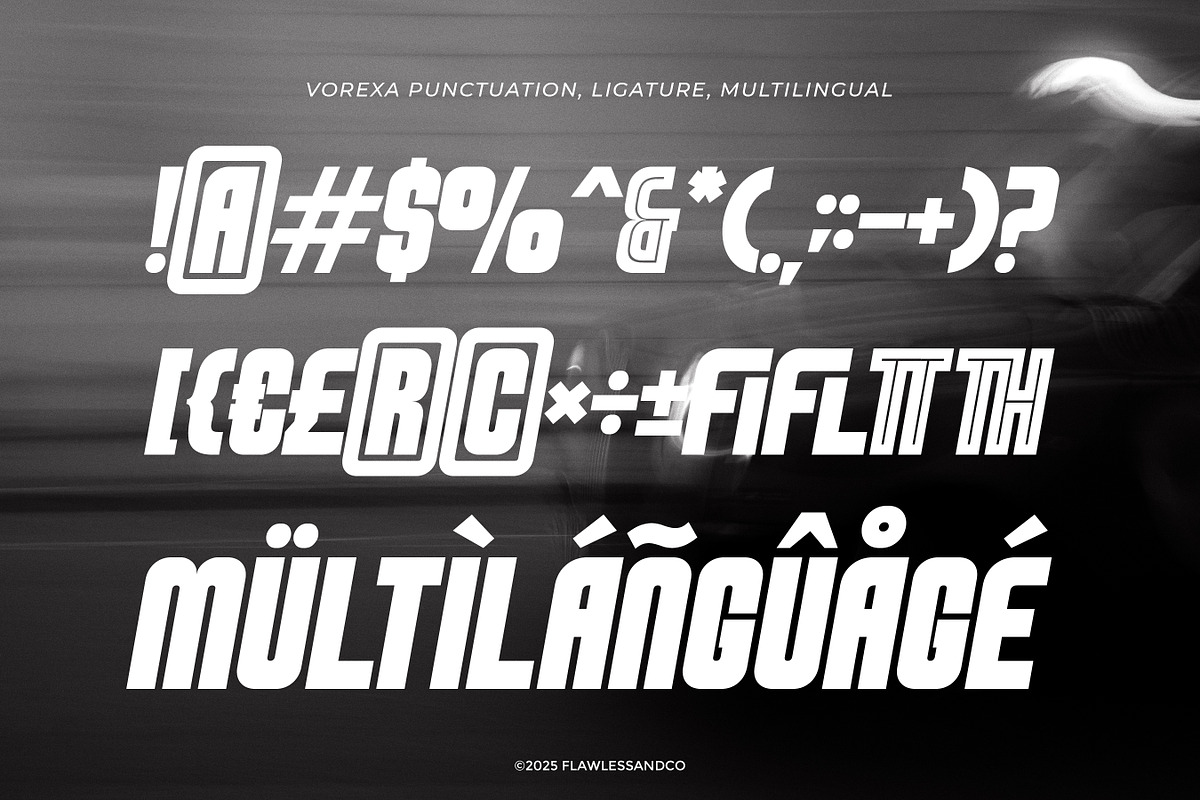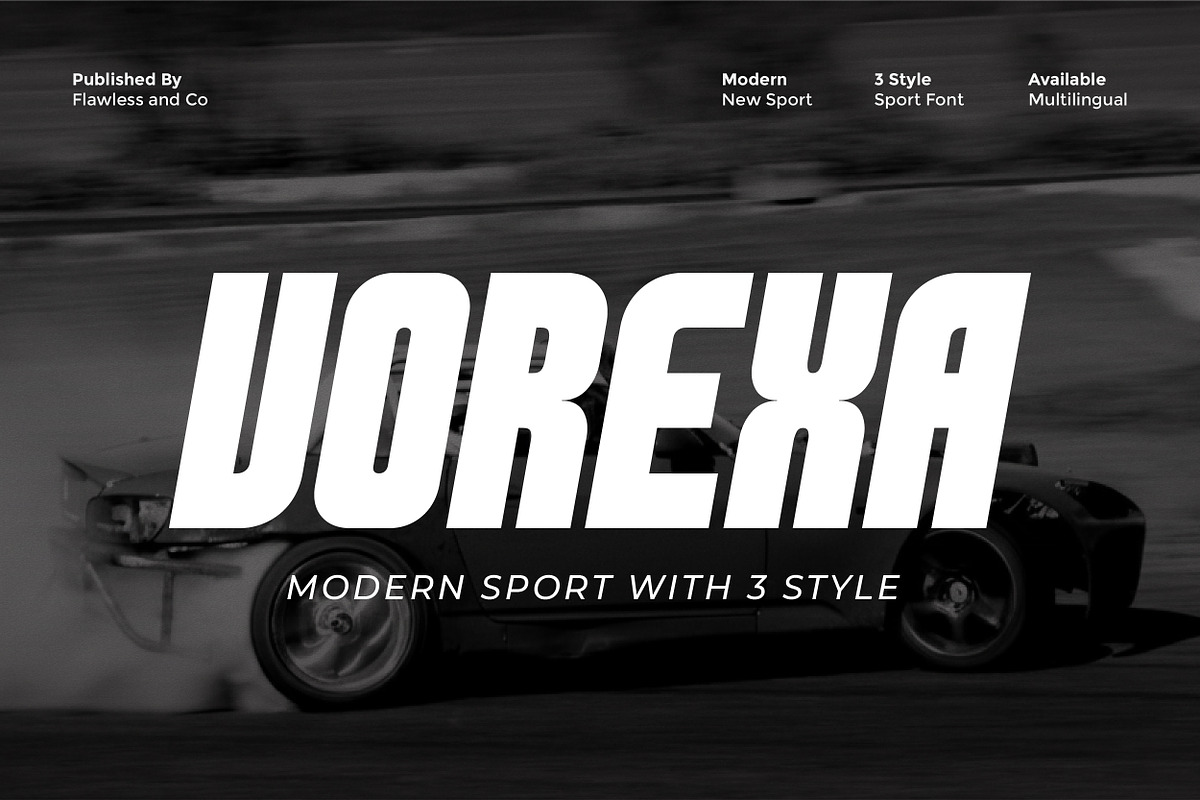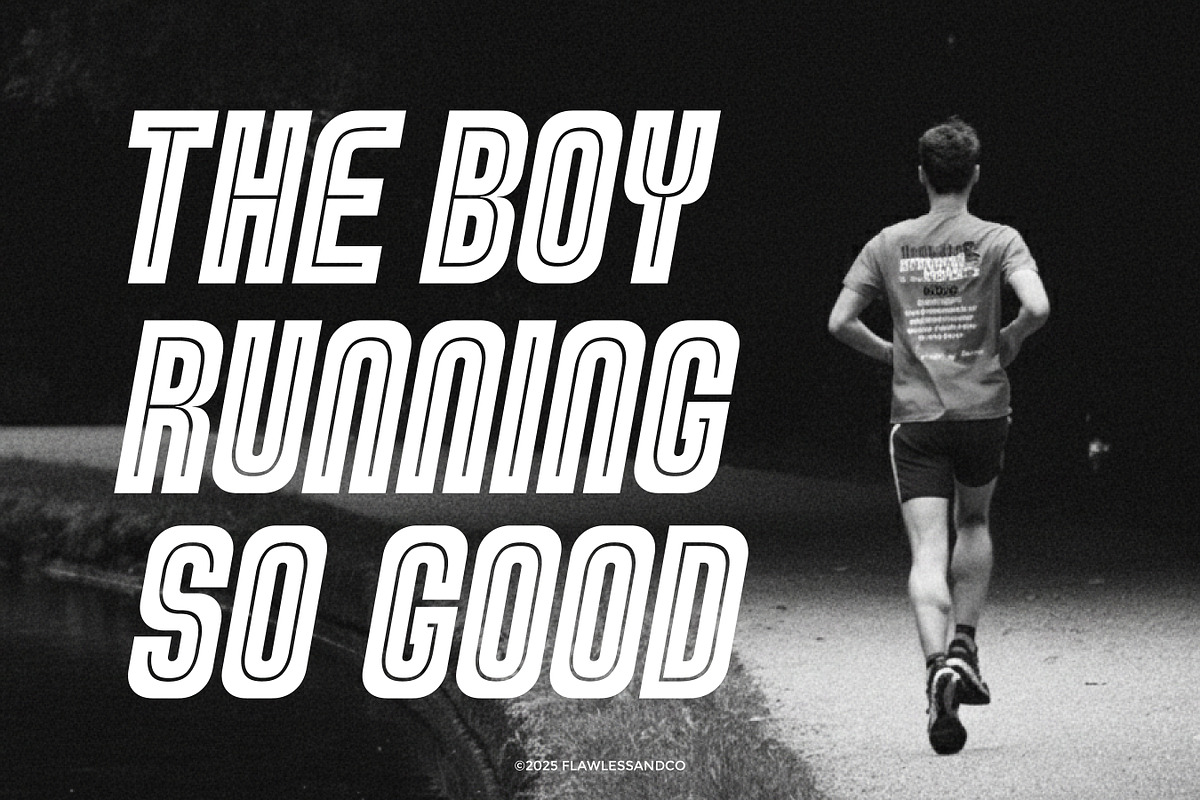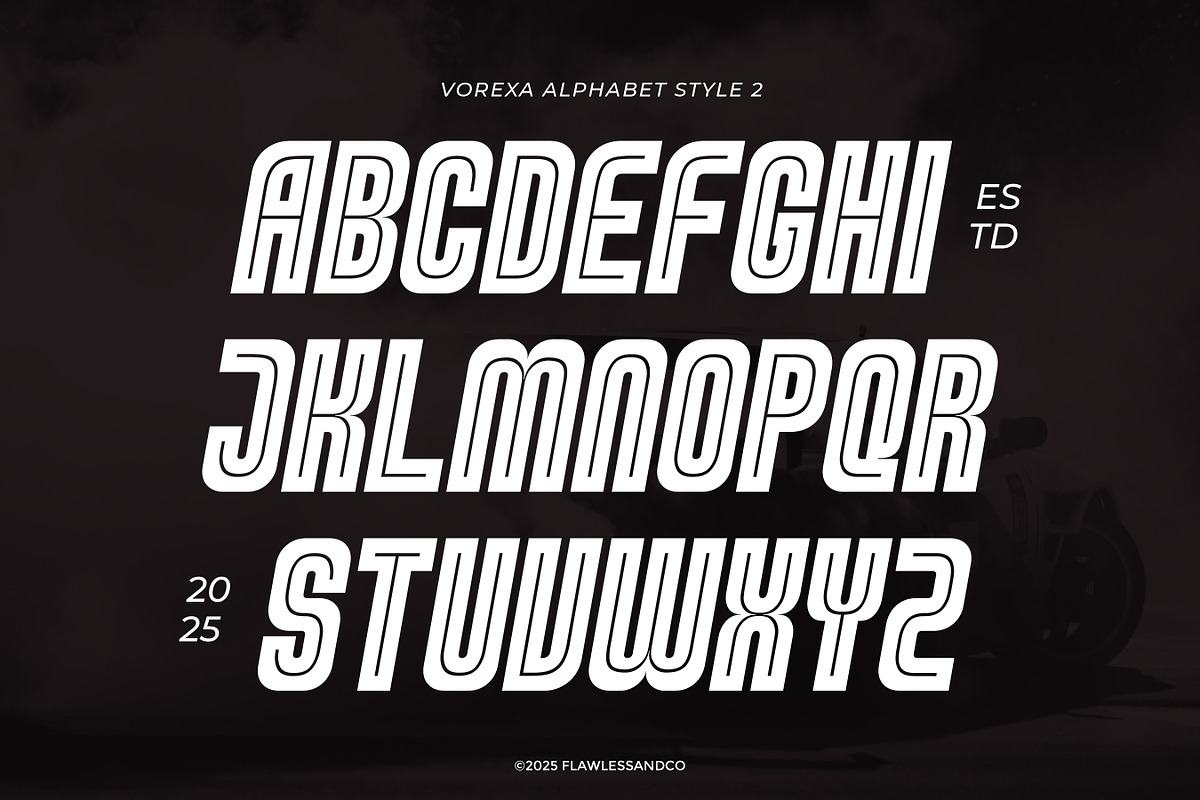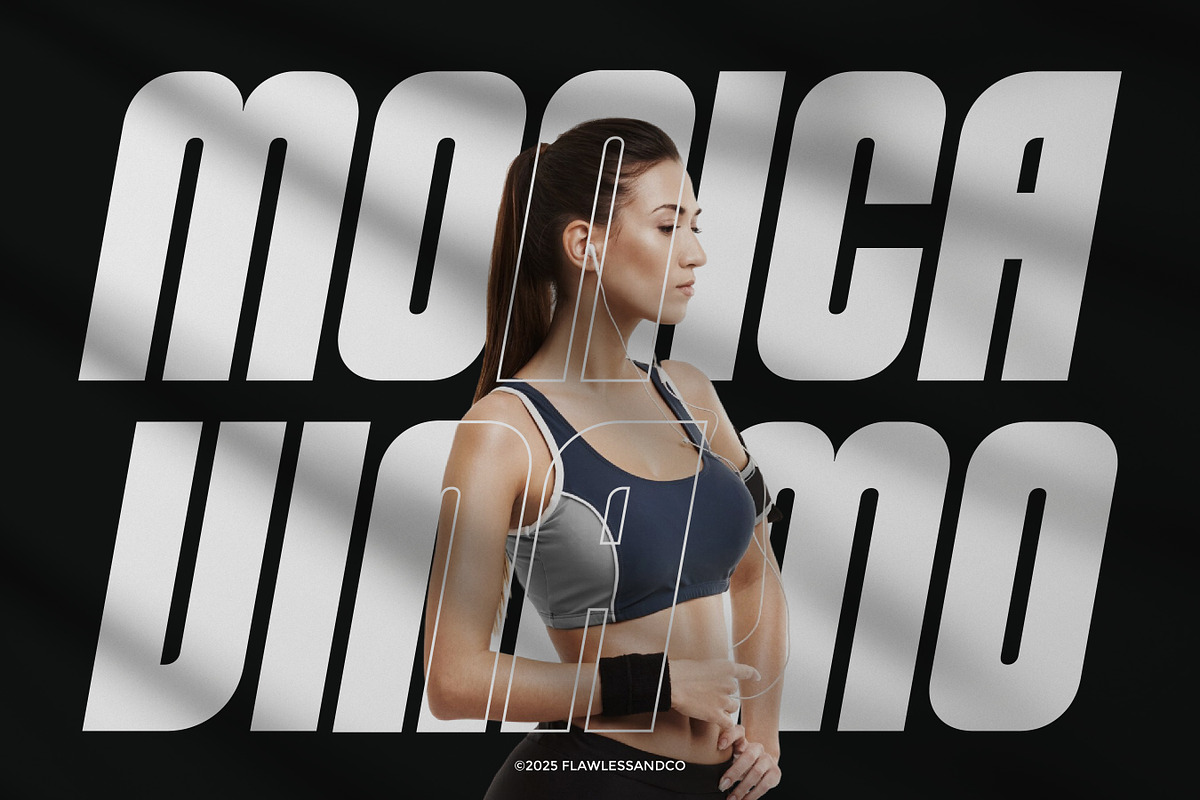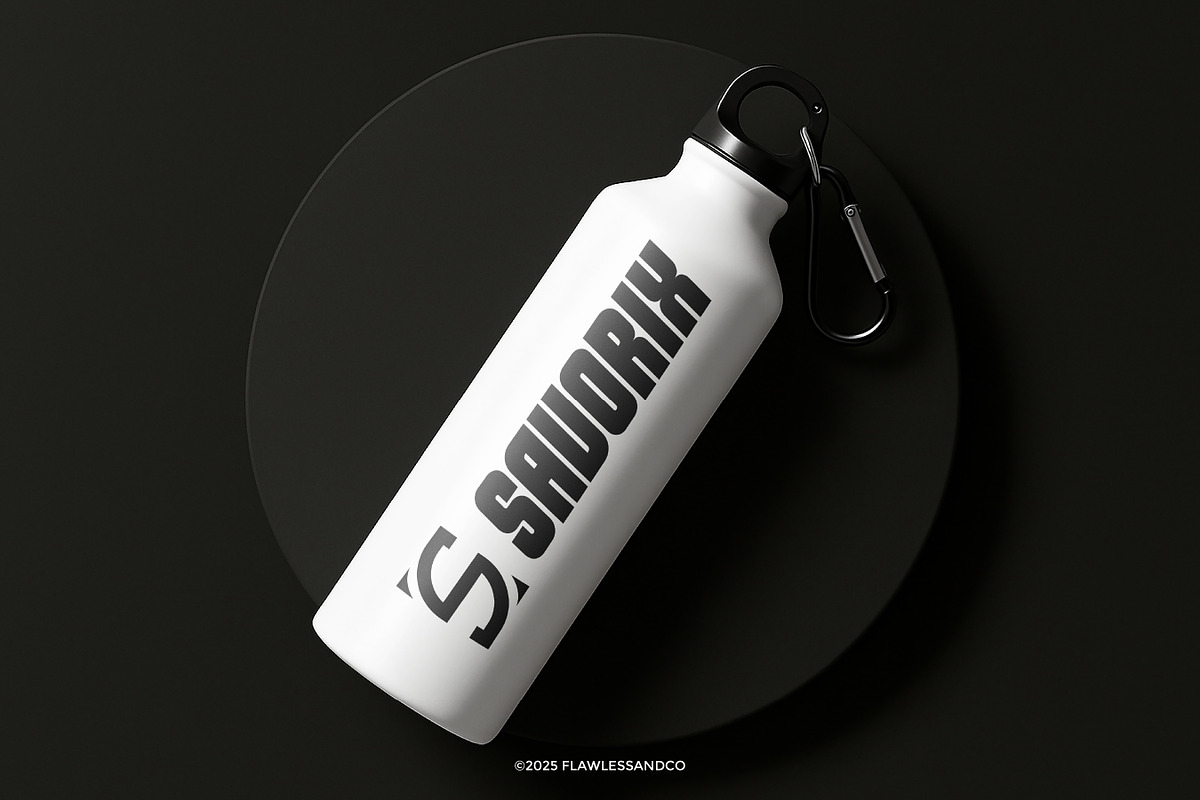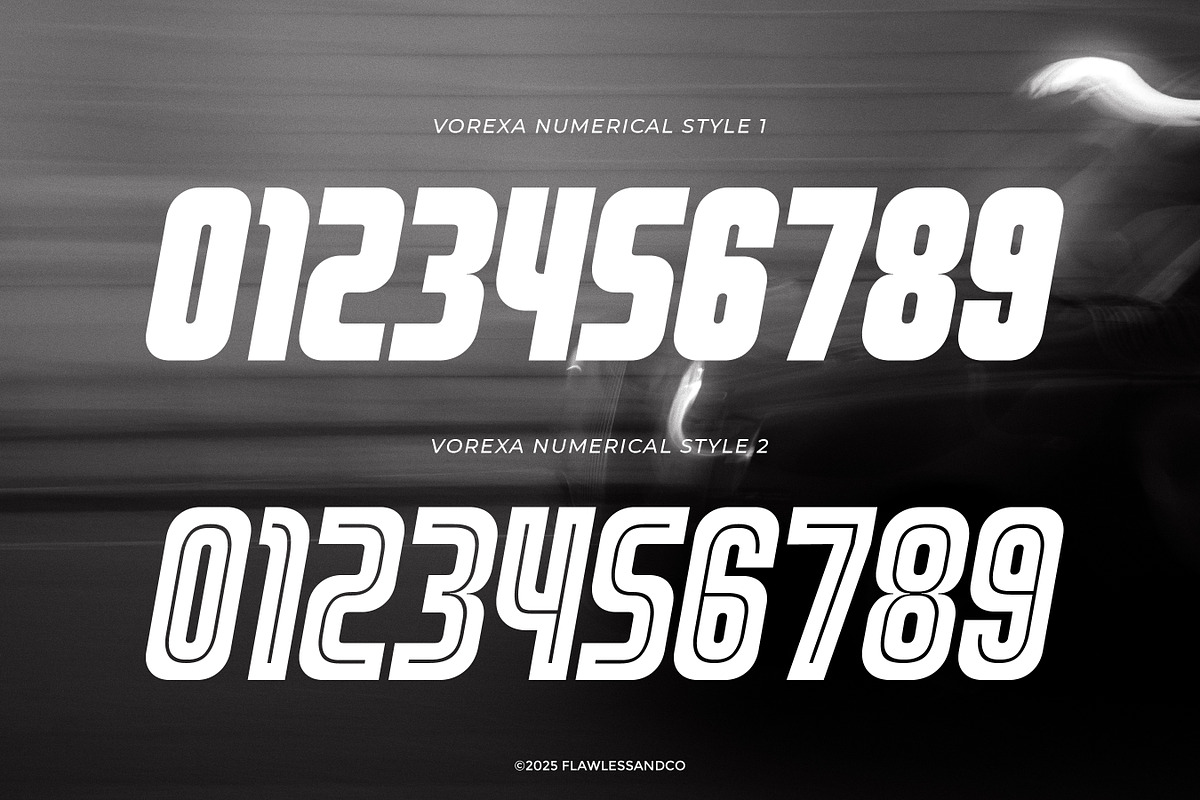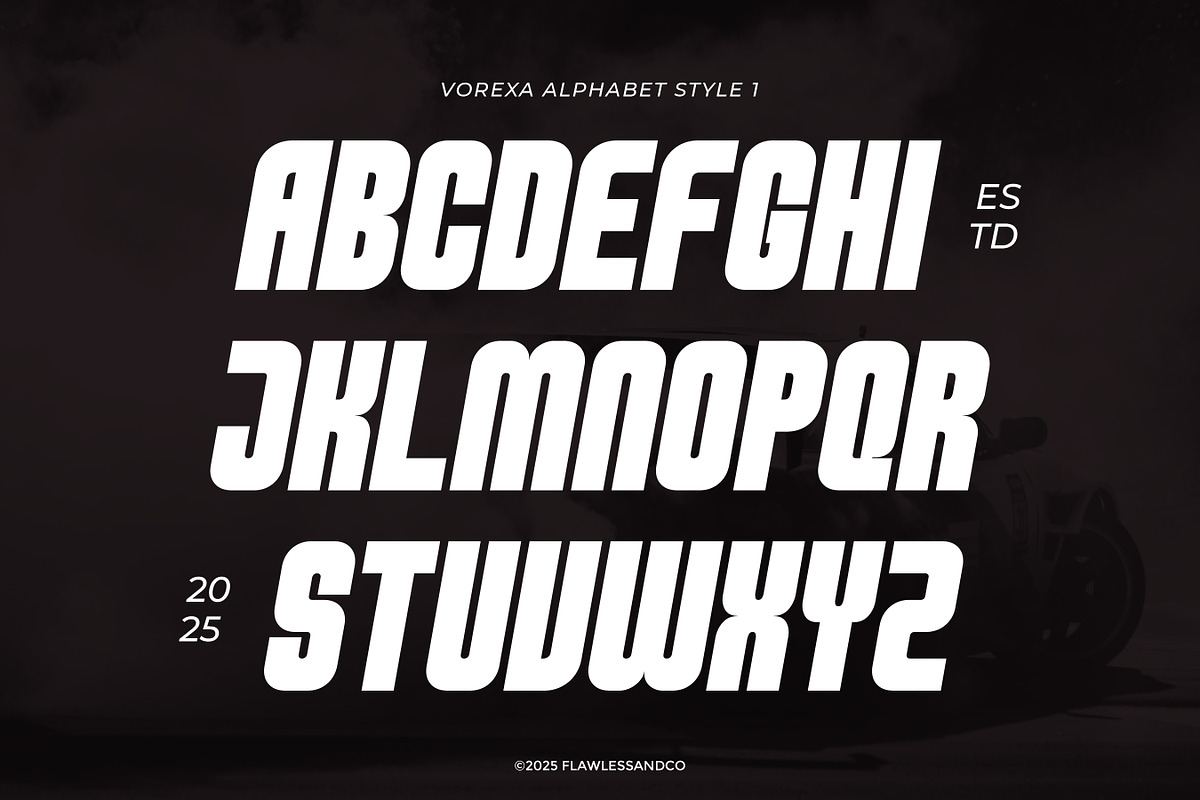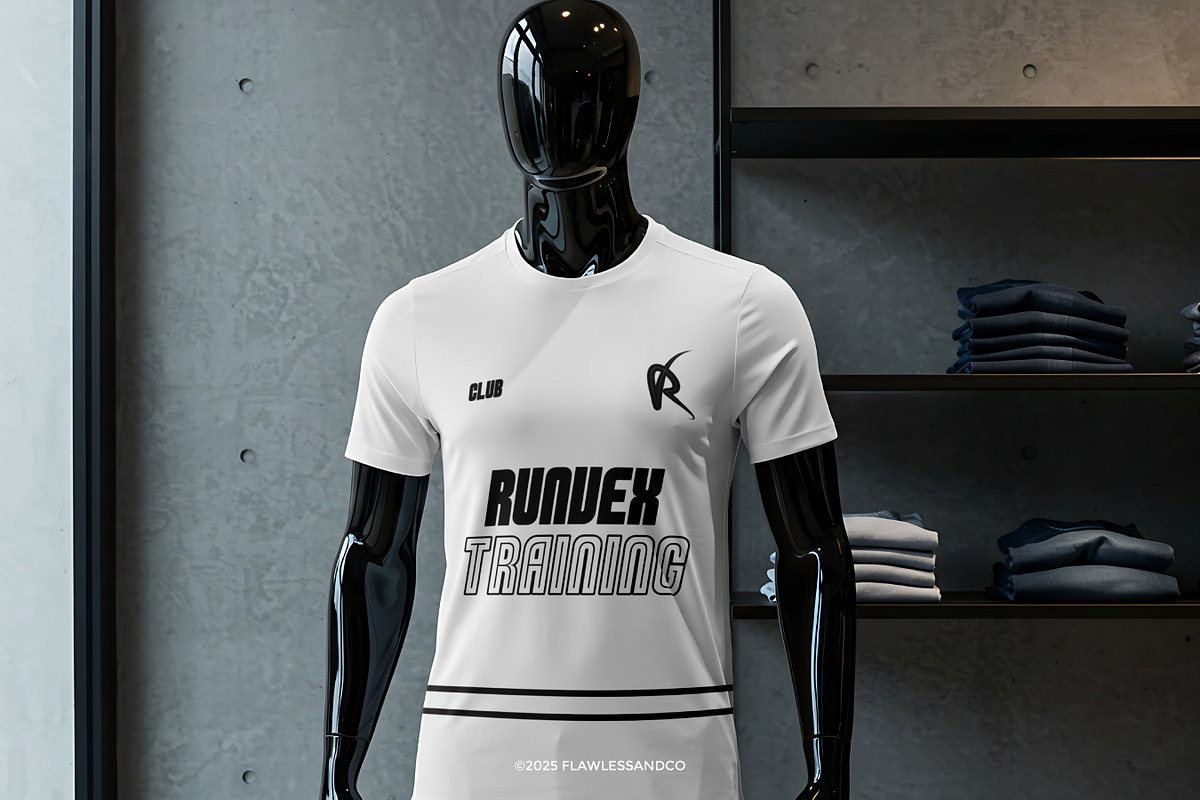
Vorexa - Modern Sport Font
Vorexa is a high-energy modern sport font built for speed, power, and performance. Designed with sharp angles, fast motion curves, and a bold condensed shape, Vorexa delivers an aggressive and competitive visual impact. Every letter is crafted to embody strength and adrenaline, making it perfect for designs that need to stand out with confidence and intensity. Vorexa comes with 3 sporty styles, offering flexibility for powerful headlines, standout branding, and modern competitive aesthetics.
Who Should Use Vorexa?
Vorexa is the ideal font for designers who want to bring power, speed, and a modern competitive atmosphere into their projects. It’s perfect for logo designers seeking a strong and fearless identity, sports and fitness brands that want energetic and performance-driven visuals, as well as esports and gaming creators who need a futuristic and electrifying look.
A Must-Have Font for Brand, Logo, and Sport Creators and Designers
Vorexa is the perfect choice for designers and creators who want to elevate their sport-inspired branding. With its bold and energetic form, this font brings a modern edge to fitness logos, gym merchandise, team identities, and high-impact marketing.
Why Choose Vorexa for “Brand and Logo” Projects?
Vorexa is built for brands that demand power, confidence, and instant recognition. Every curve, cut, and angle is intentionally designed to communicate strength, motion, and competitive spirit — making it the perfect choice for industries that thrive on energy and ambition. Unlike generic sport fonts, Vorexa brings a modern dynamic style that feels both aggressive and stylish, ensuring your branding looks fresh, professional, and future-ready.
Suitable For:
- Sport and fitness branding
- Gym and workout apparel
- Athletic team logos and identities
- Energy drink or supplement packaging
- YouTube thumbnails and content for fitness creators
- Gaming and esports team branding